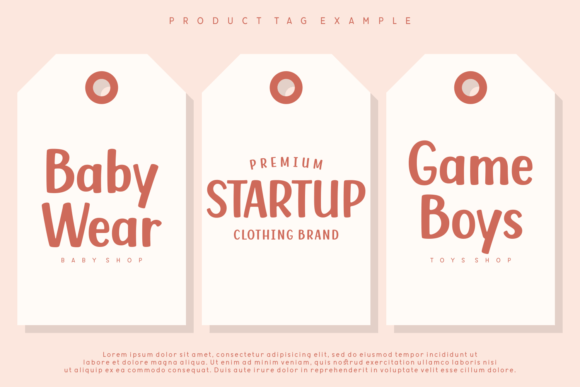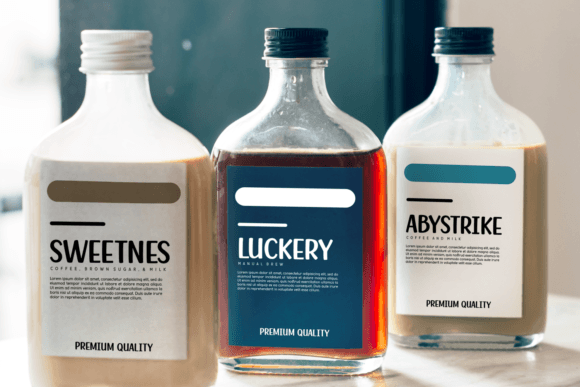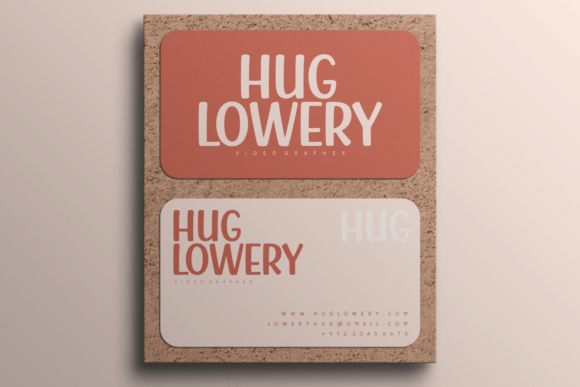
Introduction to Don_t Worry Font
As designers, we’ve all been there – staring at a blank canvas, trying to bring a creative project to life. The blank page can be intimidating, but the right font can be the spark that sets everything in motion. For those looking to add a touch of elegance to their designs, the Don’t Worry Font is an excellent choice. This smooth-looking and high-quality handwritten font is perfect for adding a personal touch to wedding invitations, thank you cards, and quotes.
What makes the Don’t Worry Font so valuable for designers is its versatility and high-quality design. Whether you’re working on a free download or a paid project, this font is sure to elevate your design to the next level. Its transparent background makes it easy to combine with other design elements, and its free download option makes it accessible to designers of all levels.
Key Features of Don_t Worry Font
- High-quality design resource ideal for creative projects requiring a friendly and approachable tone.
- Unique characteristic: This font has a unique, handwritten feel that adds a touch of personality to any creative project.
- Perfect for use in logos, branding materials, and other design elements where a friendly and approachable tone is desired.
Honest Review: Don_t Worry Font
As a designer, I’m always on the lookout for high-quality design resources to elevate my creative projects. Recently, I had the chance to try out the Don_t Worry Font, and I’m excited to share my honest review with you.
- ✨ High-quality typography: The font has a clean, modern design that’s perfect for a wide range of creative projects.
- ⚠️ Limited font styles: While the font is high-quality, it’s a bit limited in terms of font styles, which might not be ideal for designers who like to experiment with different typography.
- ⚠️ Not ideal for small text: Due to its clean design, the font might not be the best choice for small text, as it can become difficult to read.
Overall, I’d say the Don_t Worry Font is a solid addition to any designer’s toolkit. Its high-quality typography and transparent background make it a great choice for creative projects, and the fact that it’s free to download is a major bonus. Just be aware of its limitations, and you’ll be golden.
Tips for Getting the Most Out of Don_t Worry Font
For the best results, use the Don_t Worry Font in conjunction with a high-quality image or design element. Experiment with different font sizes, colors, and styles to achieve a unique look. Consider using the font on a transparent background for a more modern and creative design.
The Don_t Worry Font is ideal for use in creative projects, such as social media graphics, business cards, and flyers. It’s also a great choice for use in presentations and documents, adding a touch of personality and style to your content.